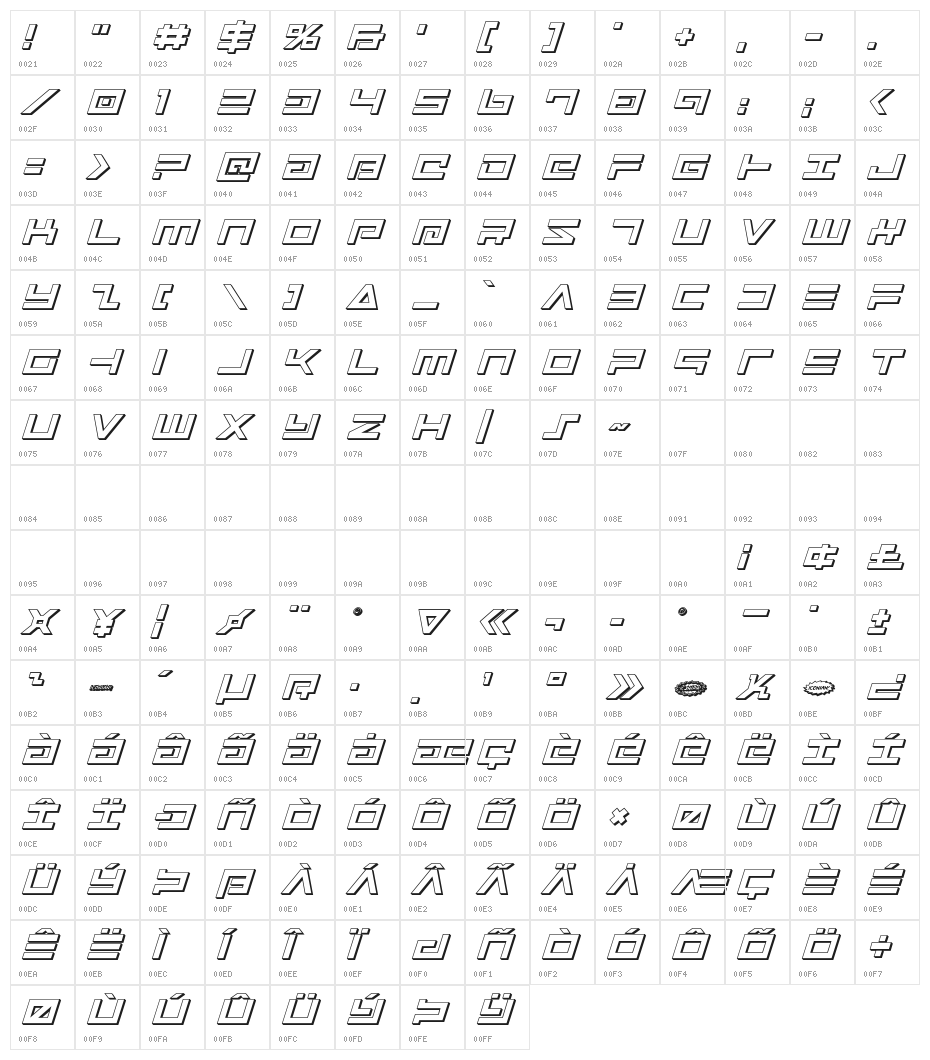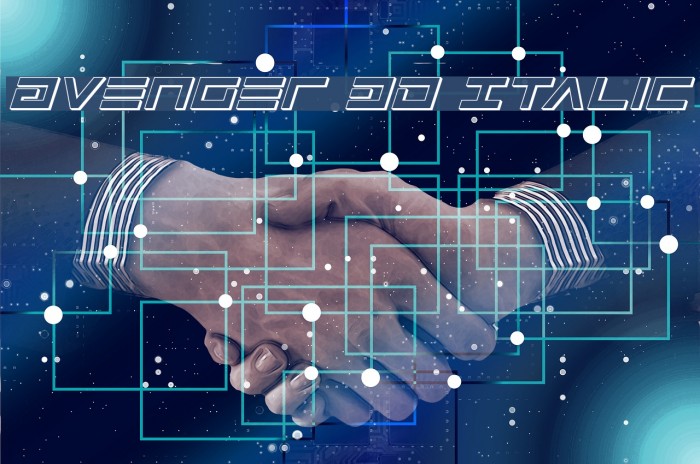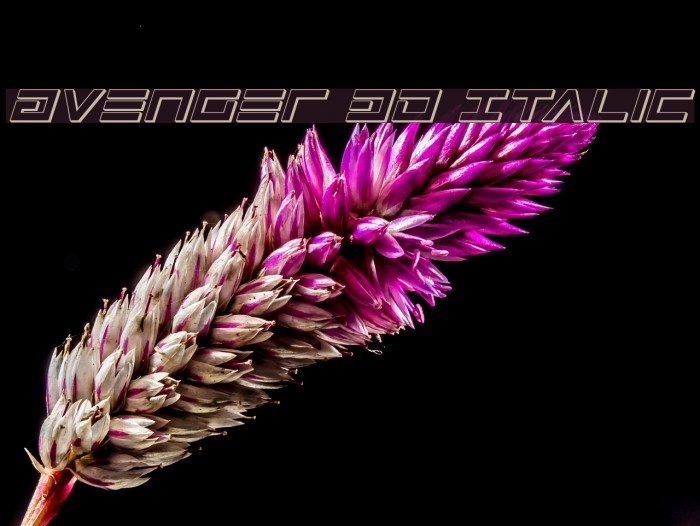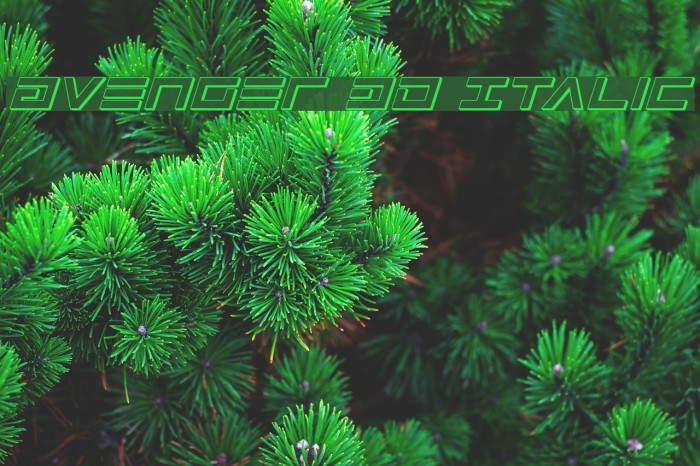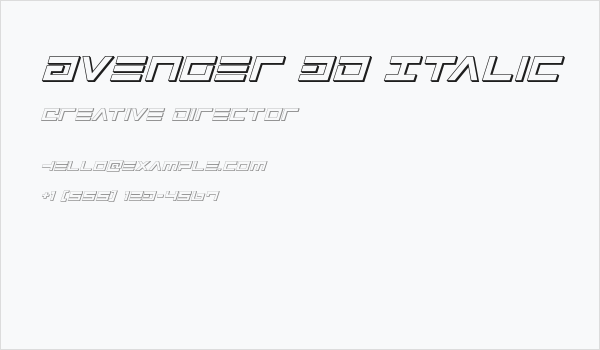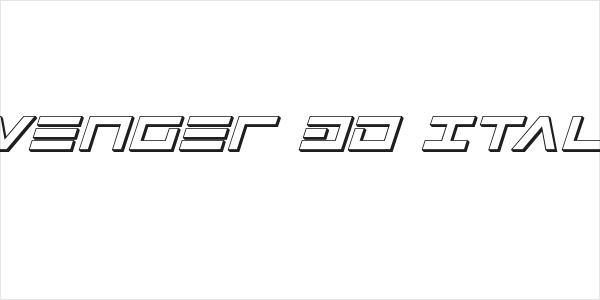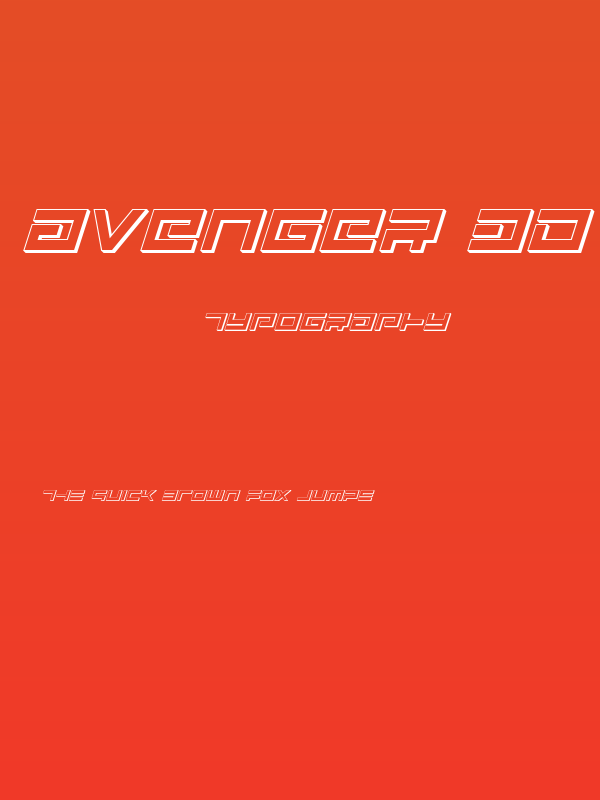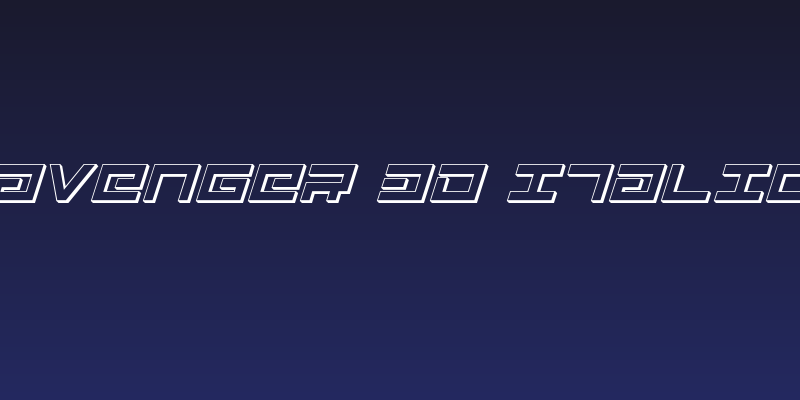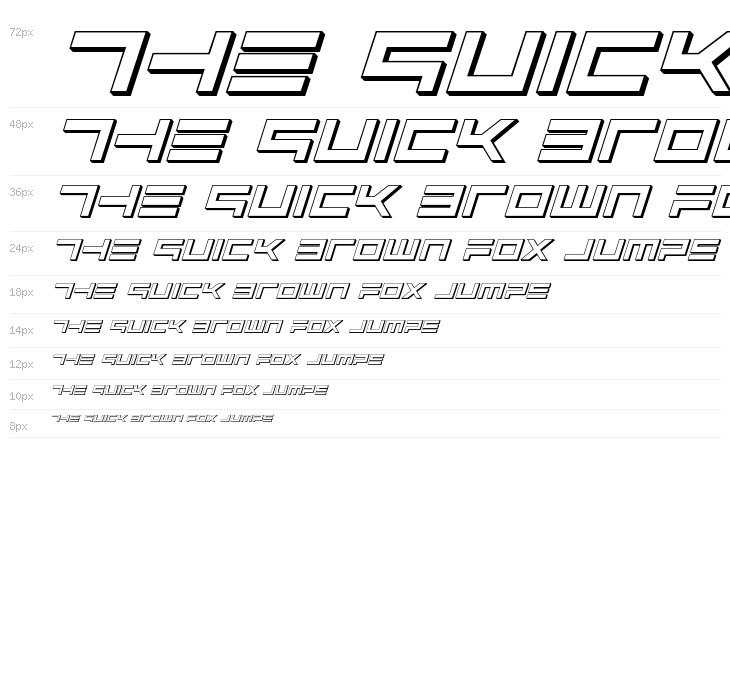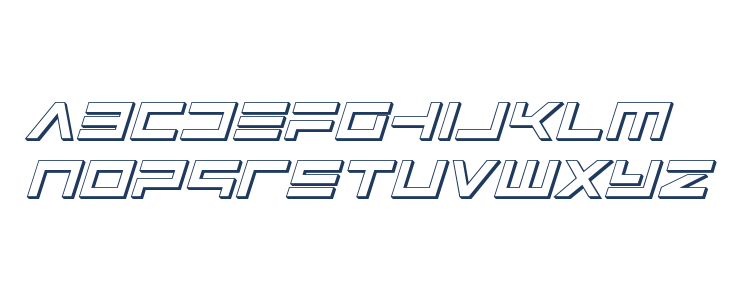
Avenger 3D Italic Font
Avenger 3D Italic Description
This font features a bold, futuristic design with a three-dimensional effect that gives it a dynamic and modern appearance. The characters are outlined with a consistent stroke, creating a sense of depth and movement. The italic slant adds to the forward-looking style, making it ideal for projects that require a sense of speed or innovation. The geometric shapes and sharp angles contribute to its tech-inspired aesthetic, while the uniformity in character height and width ensures readability. This font is particularly suitable for digital interfaces, gaming titles, or any creative project that aims to capture attention with a modern edge.